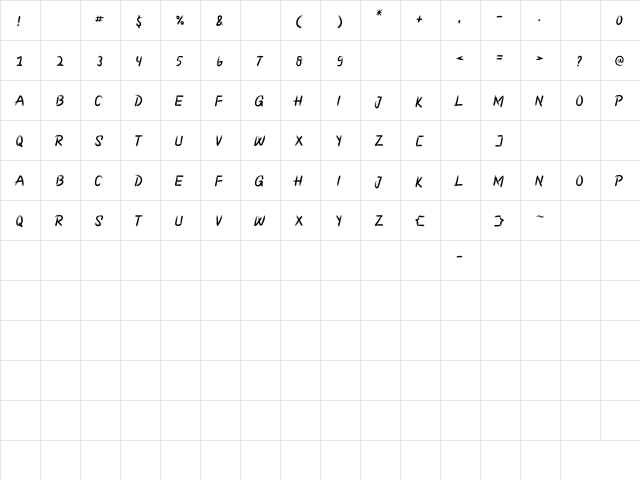
RONGGOLAWE Regular
| Designer | ABDUL GHOFUR |
Design Context for RONGGOLAWE Typeface
RONGGOLAWE takes a measured approach to typography — its balanced proportions and neutral character make it a reliable workhorse for both digital and print work.